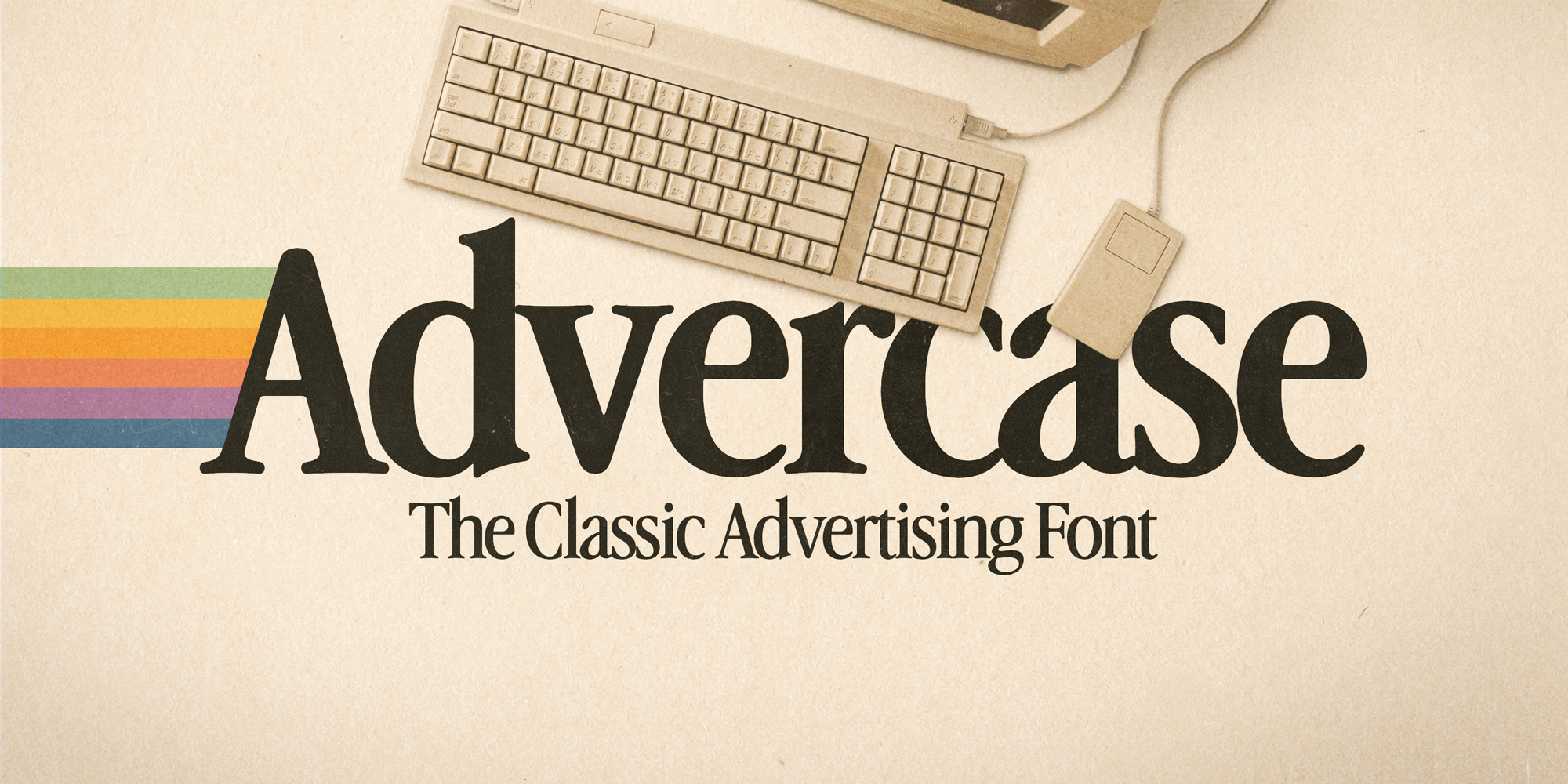
Advercase Font is ideal for advertising agency branding, marketing campaign headlines, promotional poster designs, commercial advertising materials, sales presentation graphics, dynamic marketing communications, bold advertising banners, persuasive copywriting projects, attention-grabbing signage, and impactful brand messaging applications. This commanding typeface creates powerful advertising atmosphere in both traditional print and digital marketing platforms.
What makes Advercase Font exciting is its strategic design optimization for maximum advertising impact with commanding presence and persuasive authority. The font features bold, attention-grabbing letterforms with advertising-focused proportions and commercial character details that ensure message clarity and brand memorability. Its commanding design establishes an atmosphere of marketing excellence and advertising sophistication that resonates with consumers and drives brand engagement.
Advercase Font family includes advertising variations: Light, Regular, Medium, Bold, and Impact versions, each with commercial alternates and marketing character sets. Each variant maintains the font's advertising effectiveness while providing designers with persuasive options for creating dynamic typography systems and commercial communication materials.
This exceptional advertising typeface brings authentic marketing credibility to projects requiring commercial presentation. Whether you're designing advertising campaigns, promotional materials, or brand marketing content, Advercase Font Free Download delivers outstanding impact and commercial sophistication. The font's advertising proportions and marketing details ensure memorable brand recognition across various commercial applications.